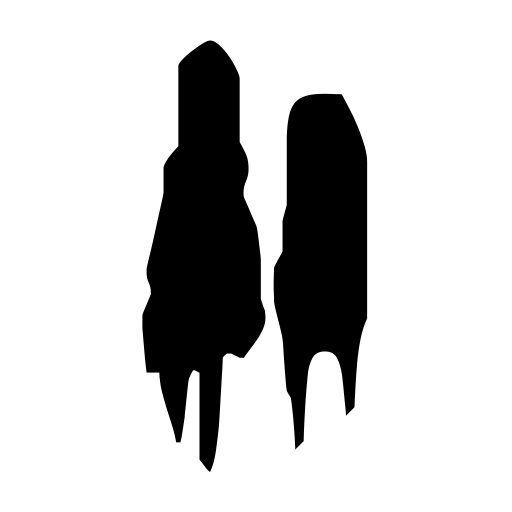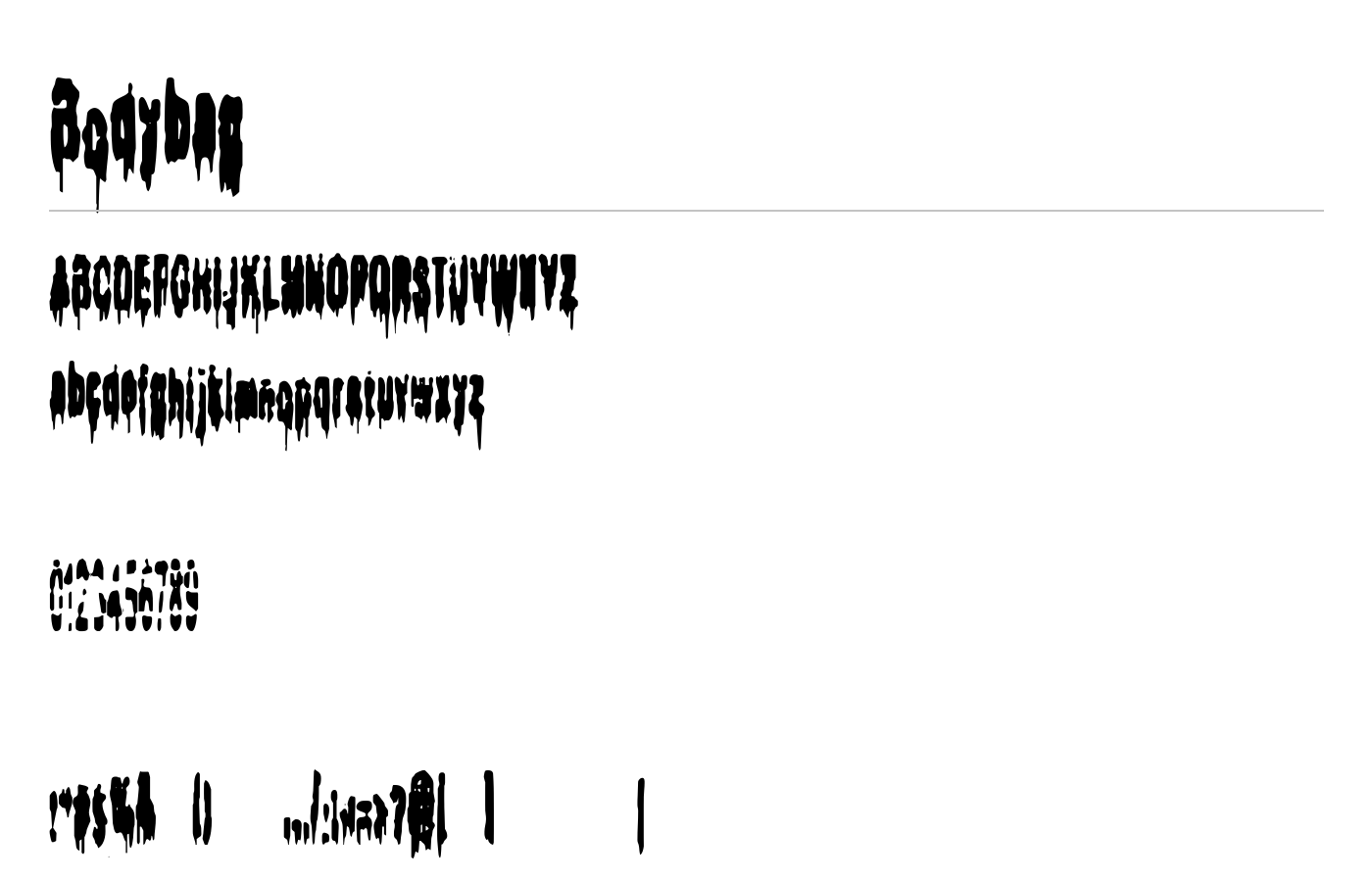
Bodybag is a bold, condensed display font characterized by its dripping, irregular edges that give it a spooky, horror-themed vibe. The font's heavy weight and distorted letterforms with a high contrast between thick and dripping strokes make it ideal for eye-catching headlines, posters, and Halloween or horror-related branding. Its unique, eerie style works best in creative, playful contexts where a dramatic, gothic atmosphere is desired.
Bodybag Font